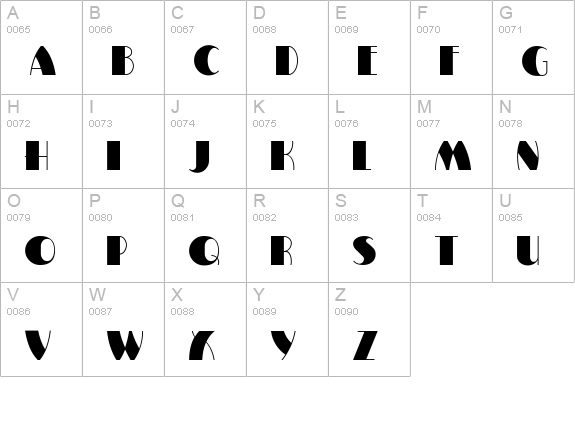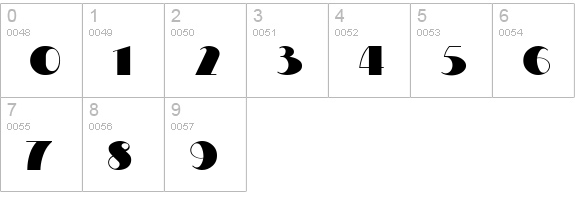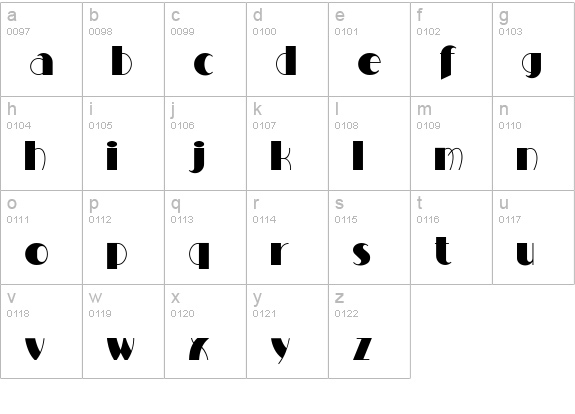
MiltonBurlesque font exudes a playful and whimsical charm that is sure to captivate any audience. With its elegant and ornate design, this font brings a touch of vintage glamour to any project. The intricate details and unique flourishes of MiltonBurlesque make it stand out from the crowd, adding a touch of sophistication to your designs. What sets MiltonBurlesque apart is not only its stunning aesthetics but also the fact that it is completely free to download. That's right, you can get your hands on this gorgeous font at no cost by visiting FontsMarket.com. Whether you're working on a branding project, invitation design, or any other creative endeavor, MiltonBurlesque is the perfect choice to add a touch of elegance and flair. Download it today and let your creativity soar with this exquisite font!